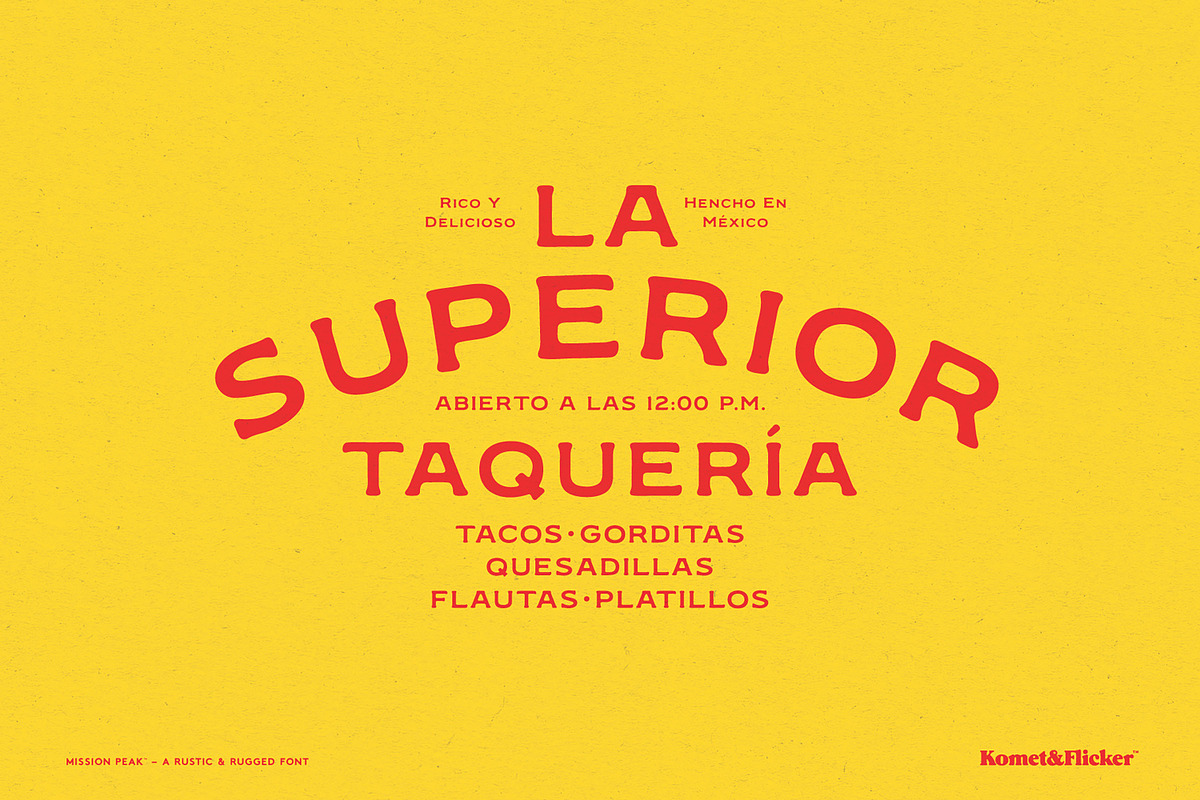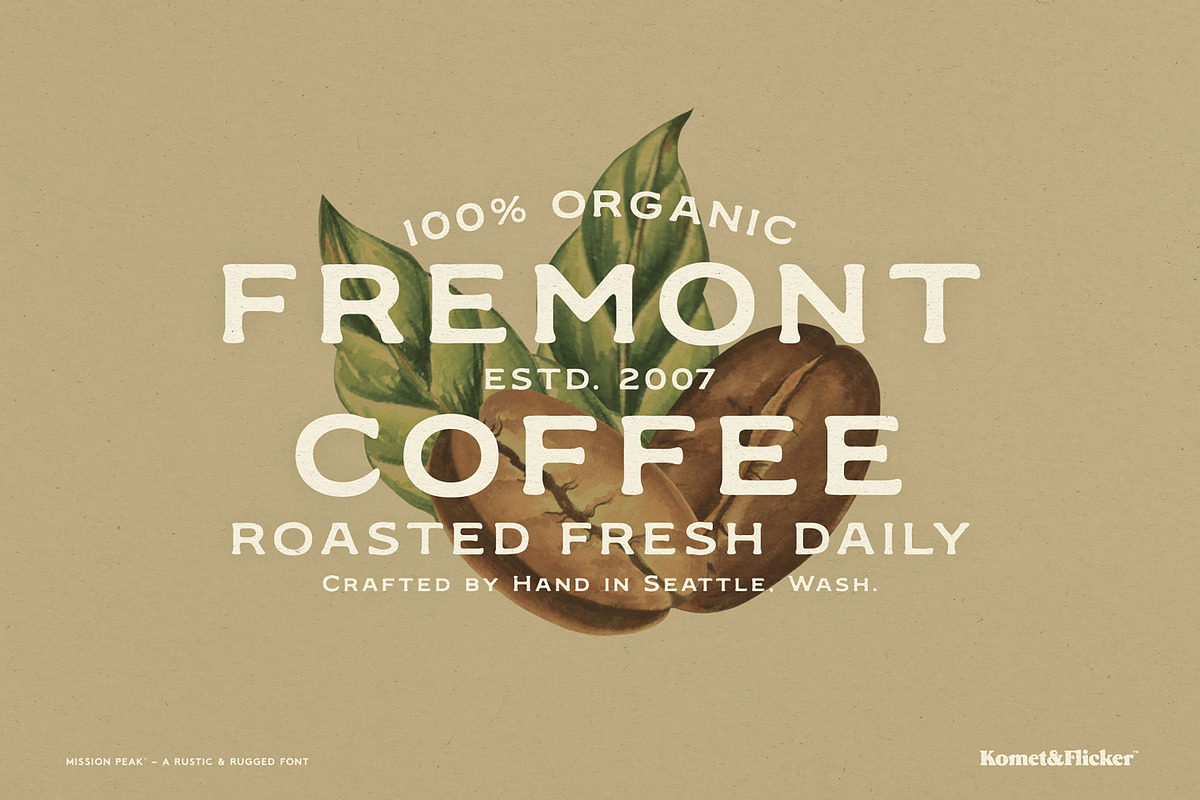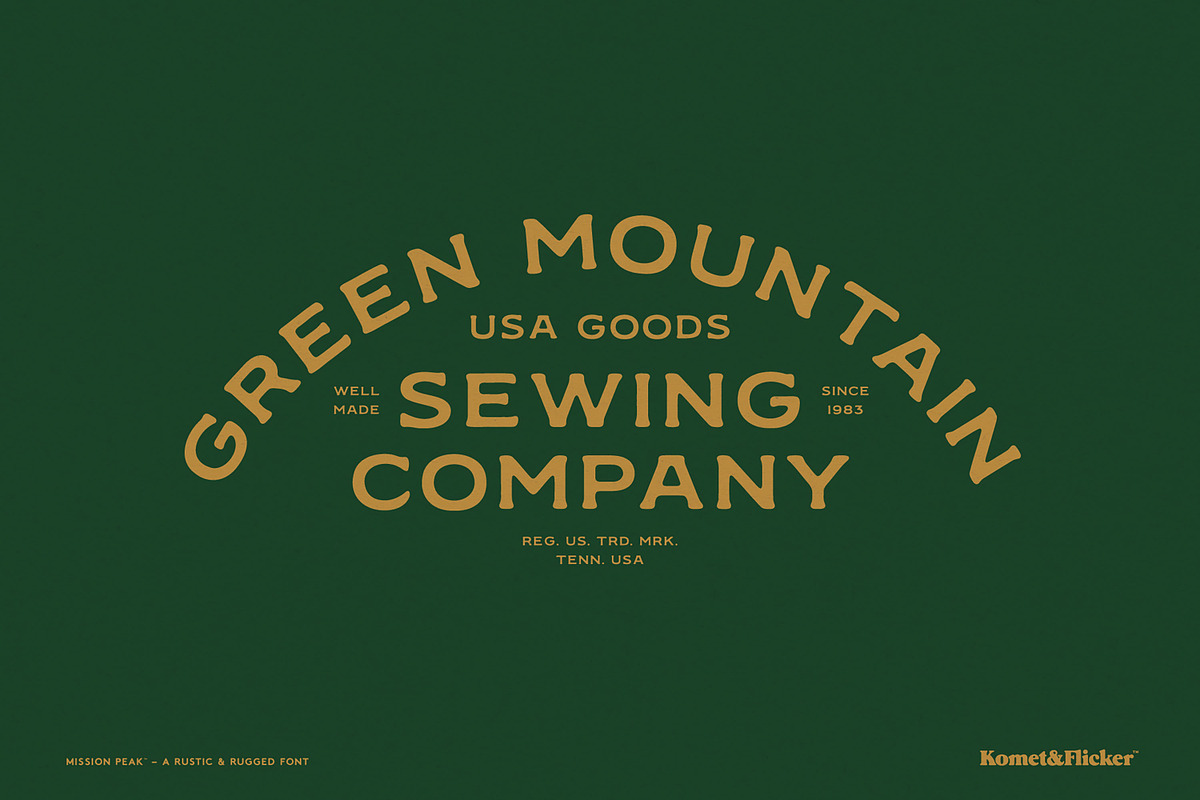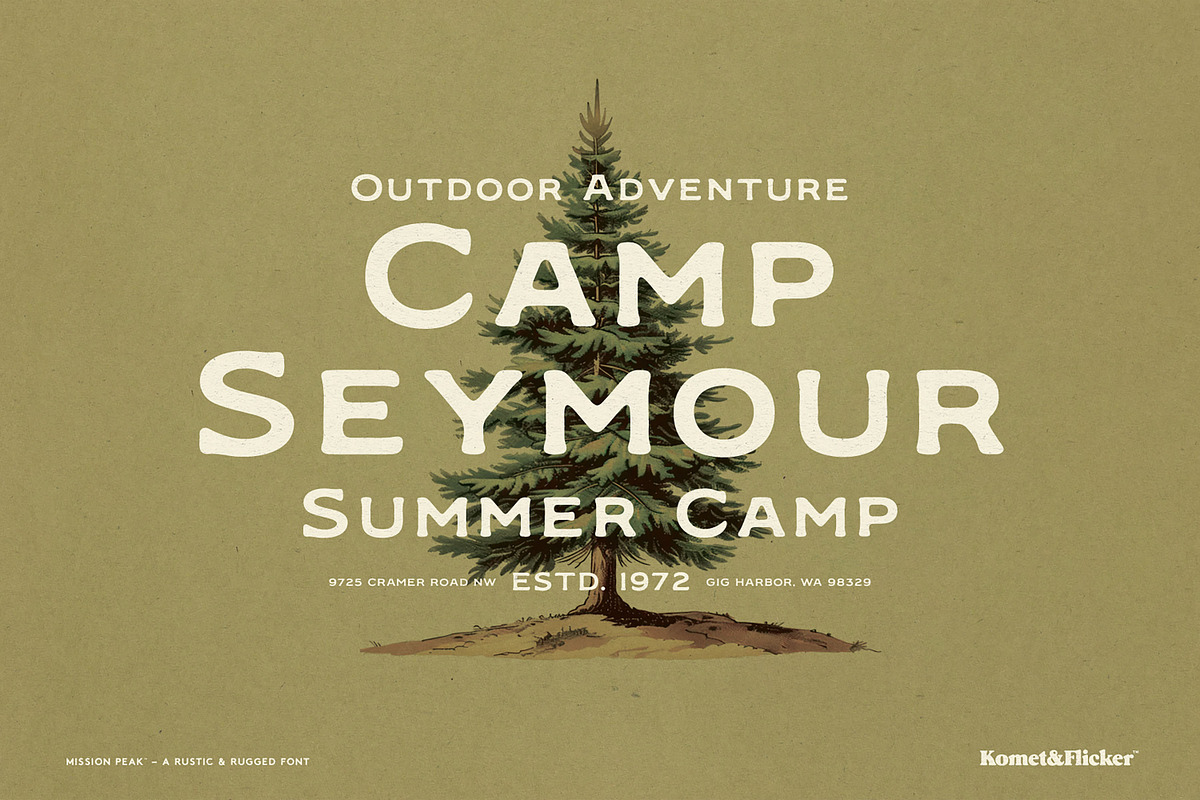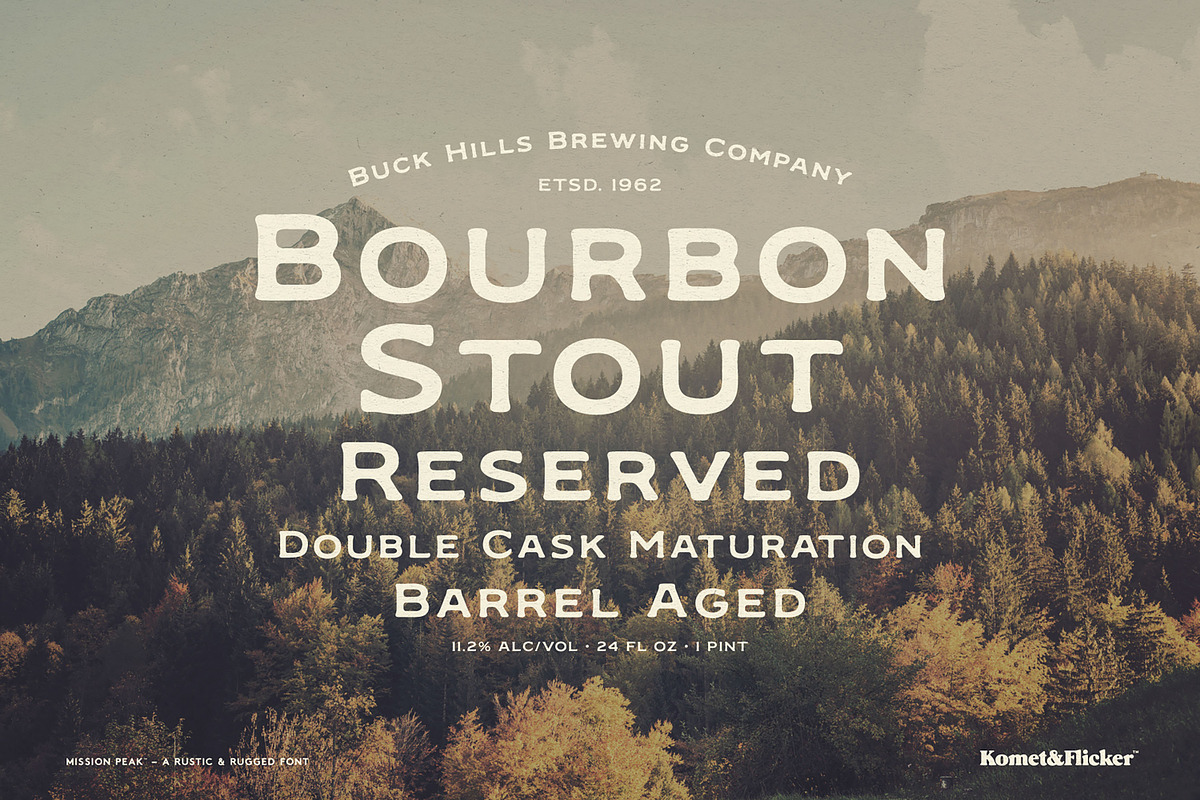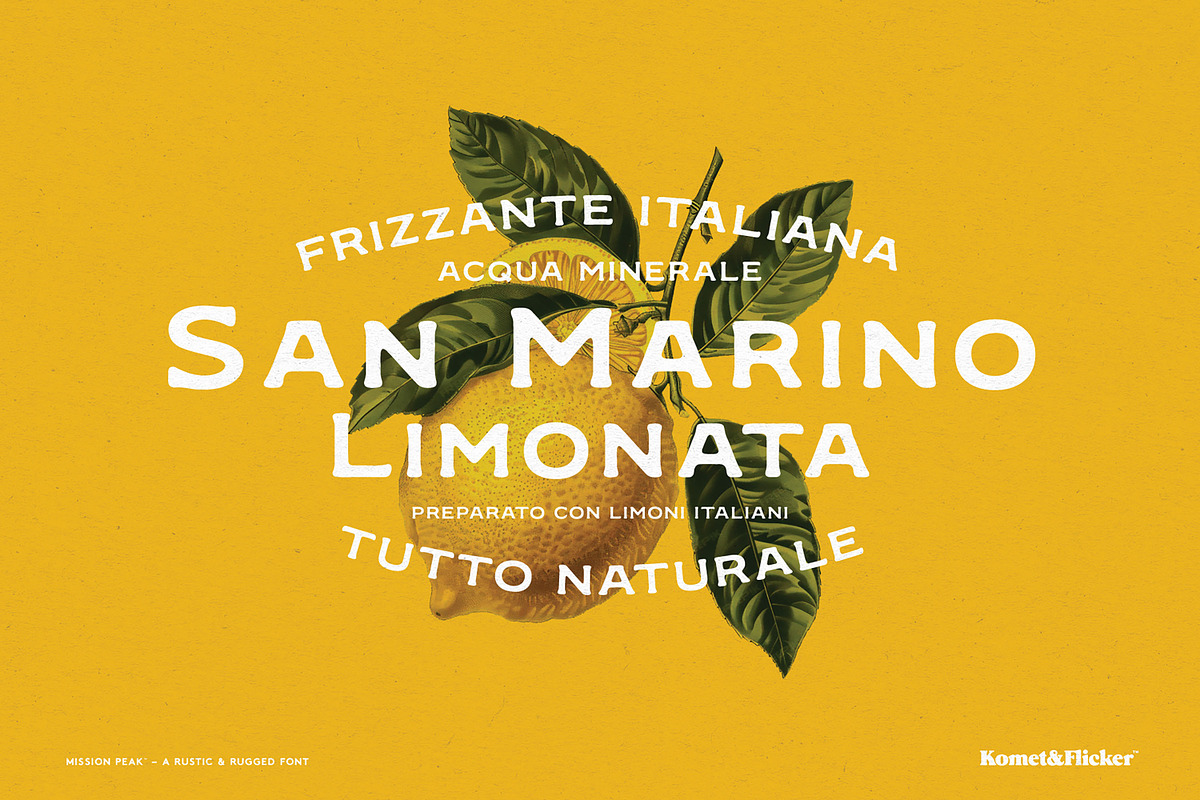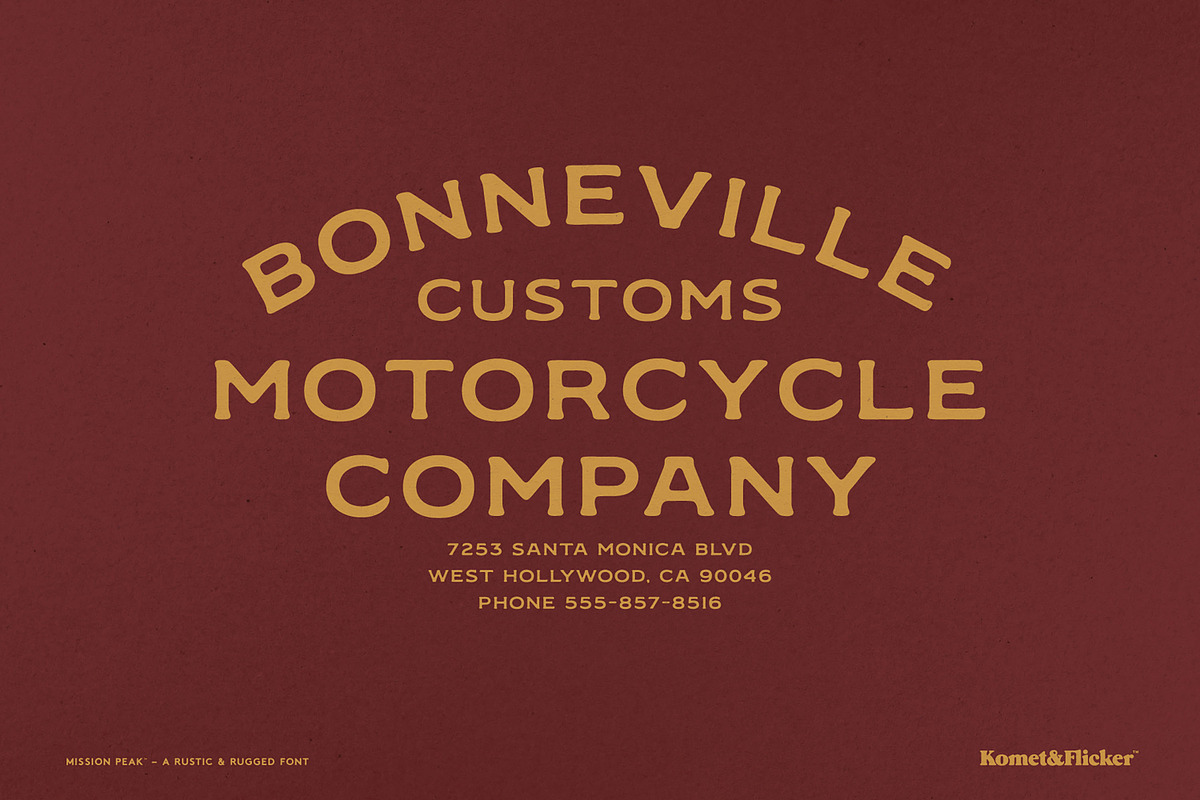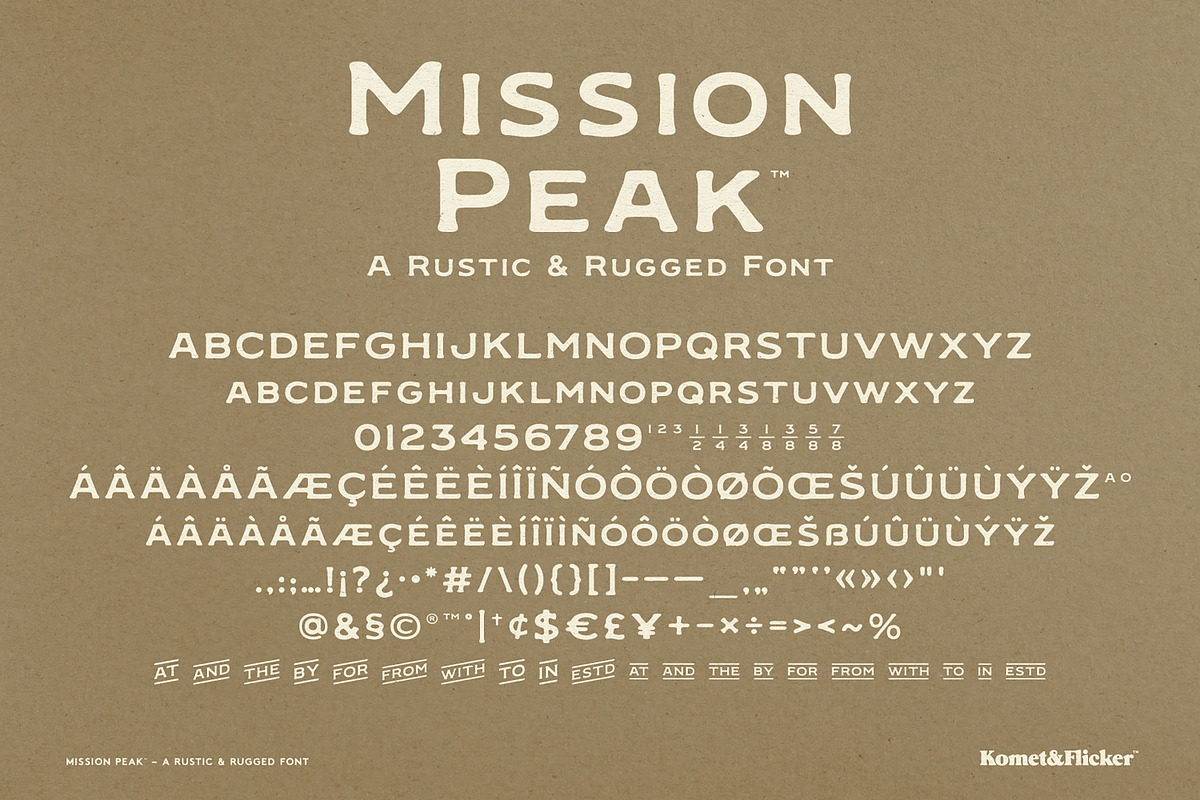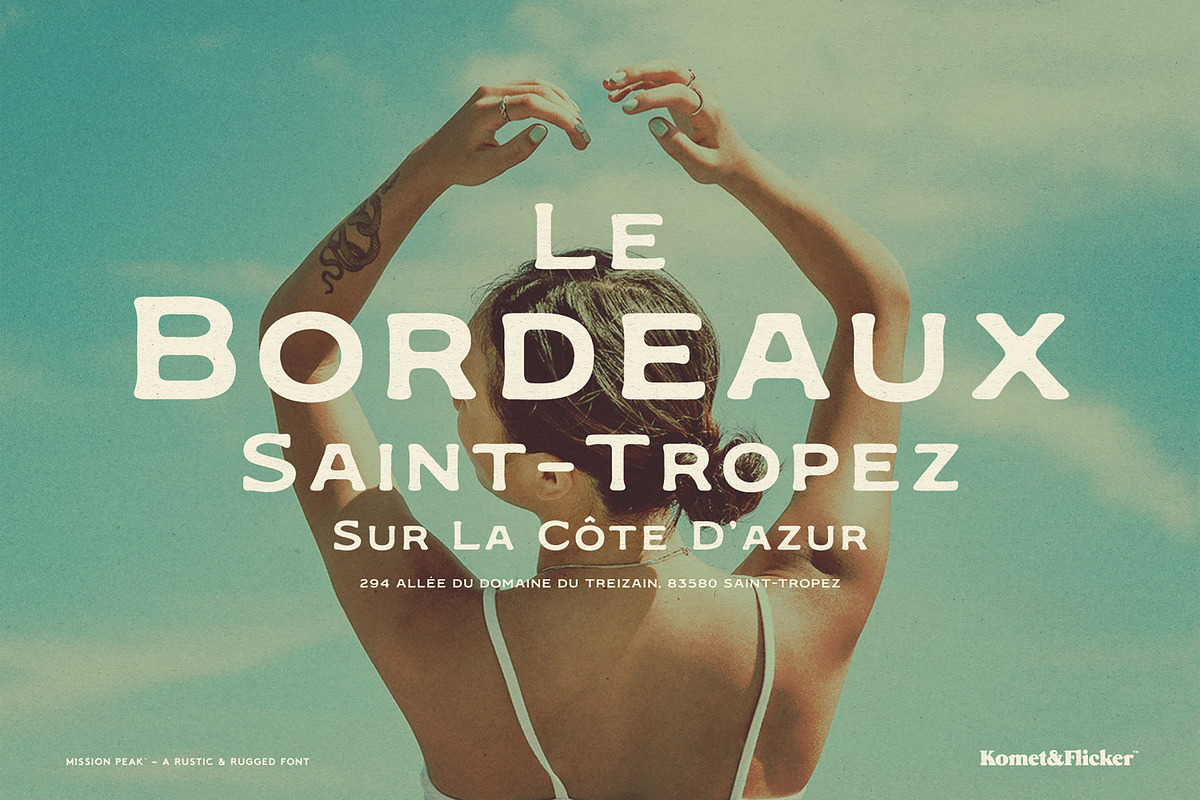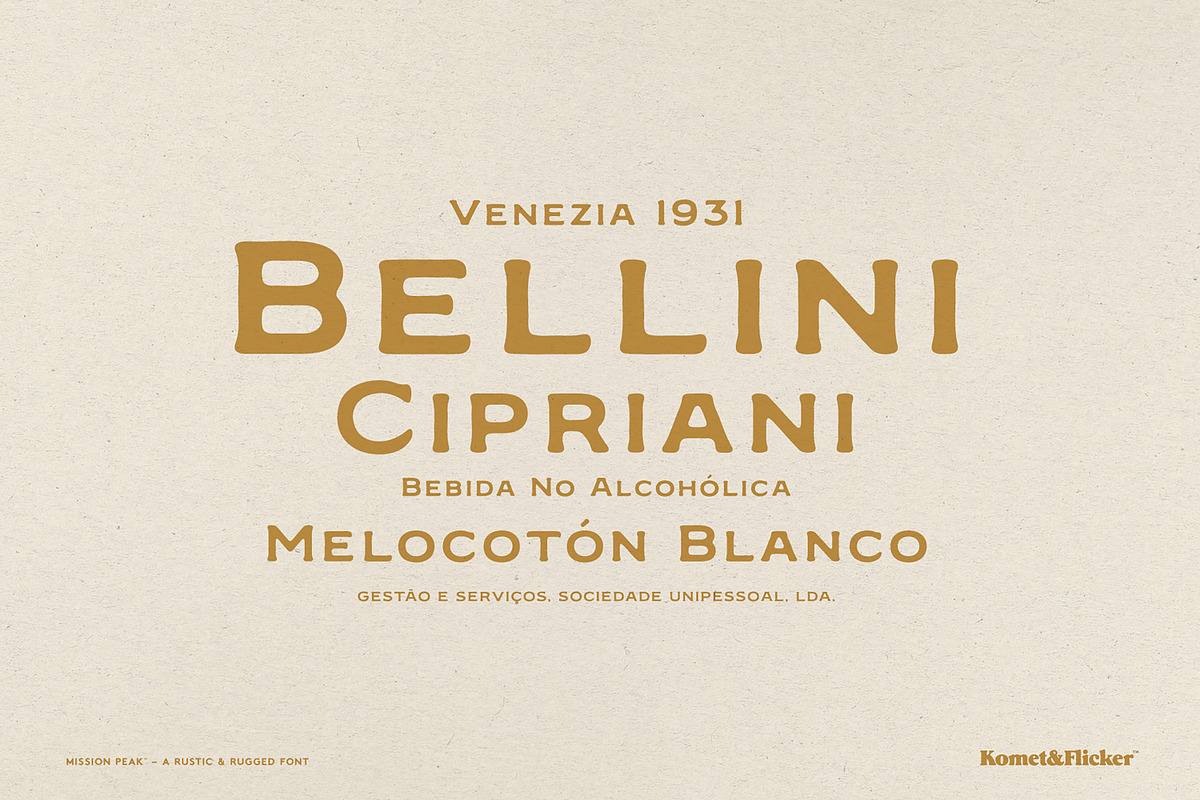
Mission Peak - A Rugged Font
Ascend to Mission Peak, the small caps font that embodies the spirit of outdoor adventure! This font’s rugged charm brings a rustic, well-worn feel to your designs, infusing them with a sense of authenticity that resonates with outdoor enthusiasts and wanderers alike.
Whether you’re crafting branding for outdoor-themed projects, cozy coffee shops, vintage apparel, or artisanal beer and spirits labels, Mission Peak is your go-to choice. Its rustic letterforms evoke the great outdoors, making every word feel like an invitation to explore.
Plus, Mission Peak comes with a unique set of 20 custom connecting words (10 words in two styles), designed to add seamless flow to your typography. Elevate your design game with Mission Peak, and let every project tell its own story of adventure!
Set of 20 total custom connecting word glyphs (10 words in two styles)